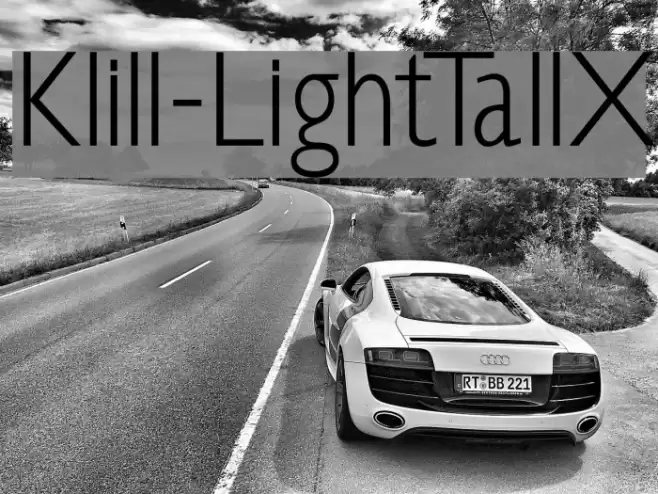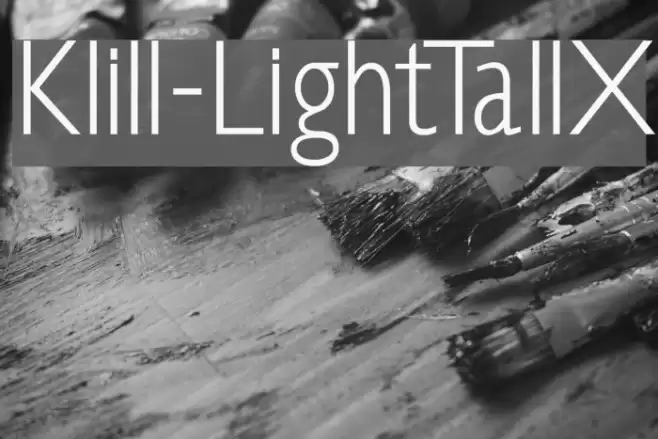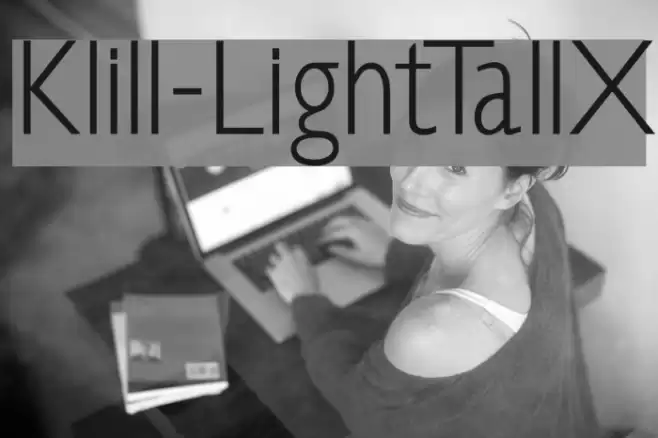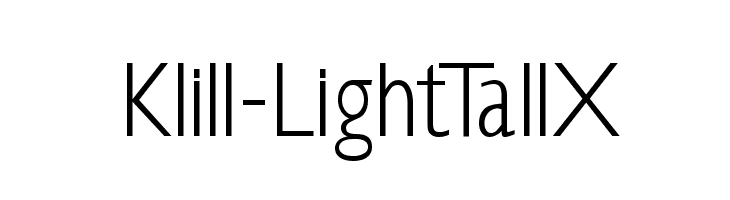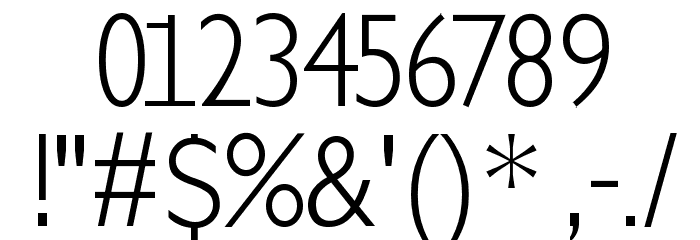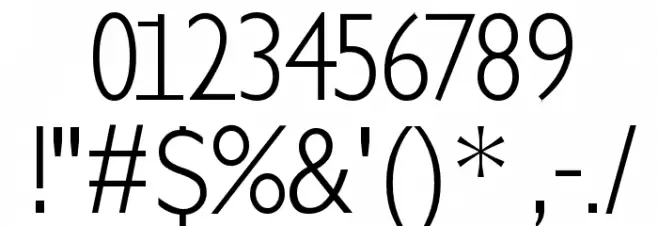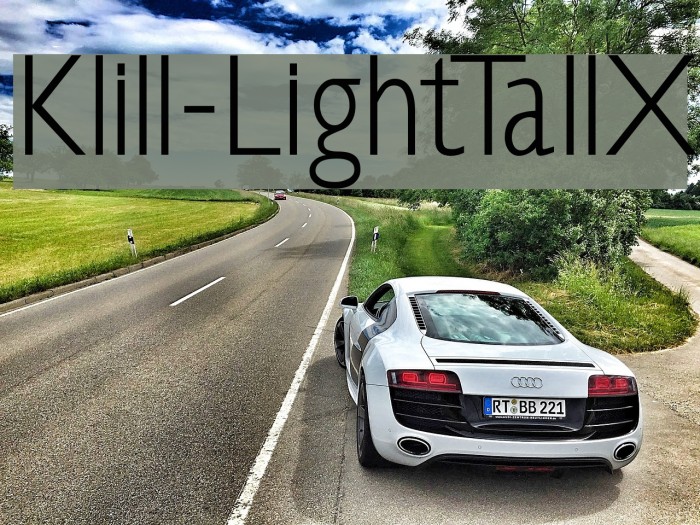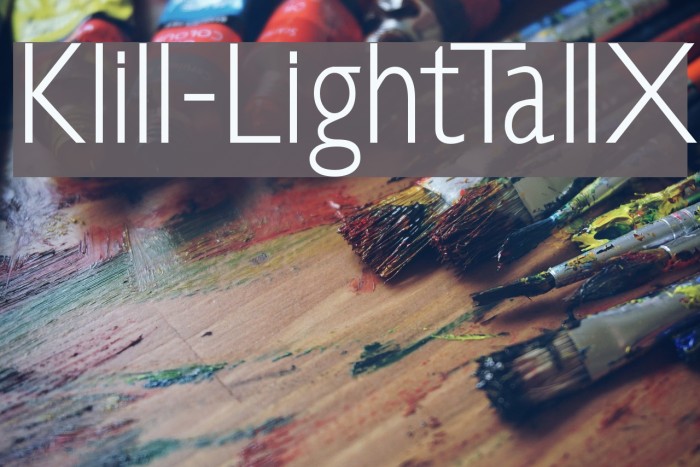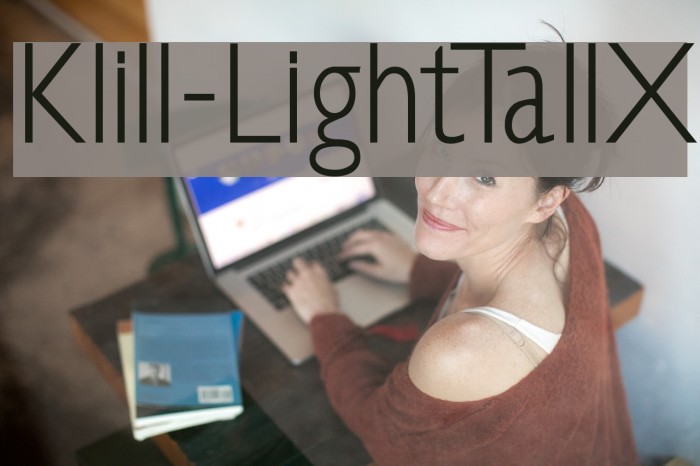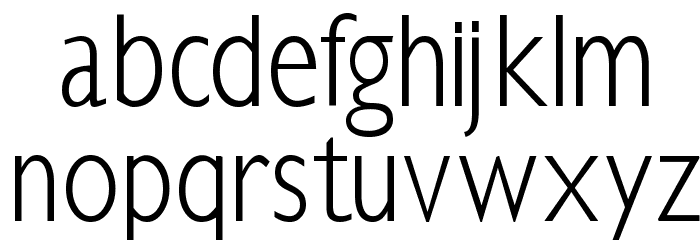
Klill-LightTallX
This font features a clean and modern sans-serif design with tall, narrow letterforms. The strokes are uniform in width, giving it a sleek and minimalist appearance. The uppercase letters are slightly taller than the lowercase, maintaining a consistent height across the alphabet. The numerals are proportional, aligning well with the overall style. Special characters are designed to match the font's aesthetic, ensuring a cohesive look. The font's simplicity and elegance make it versatile for various design applications.
A modern, tall, and narrow sans-serif font with uniform strokes.
- Weight: Light
- Width: Condensed